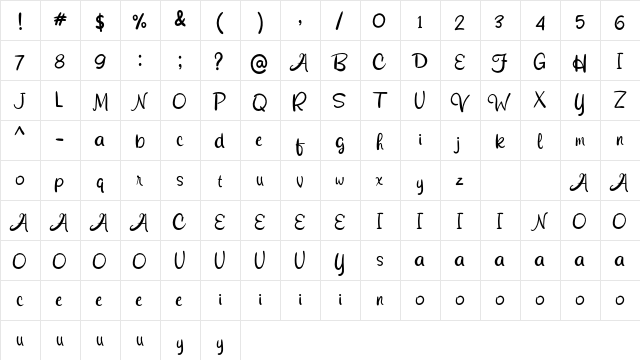
Cooking Water Regular
Design Context for Cooking Water Typeface
Cooking Water is a composed and adaptable typeface that performs quietly and consistently across a wide range of design contexts.
Pro Tip: Pair Cooking Water with a font of contrasting weight or personality to build a more expressive typographic hierarchy.